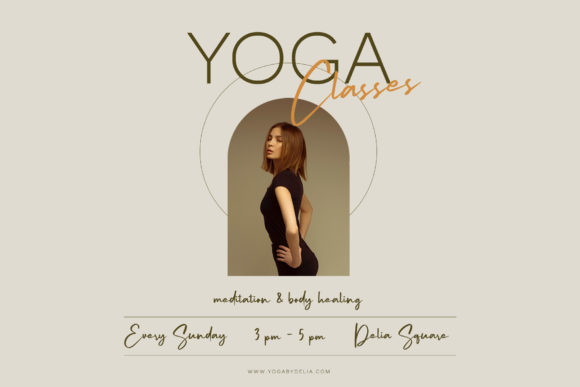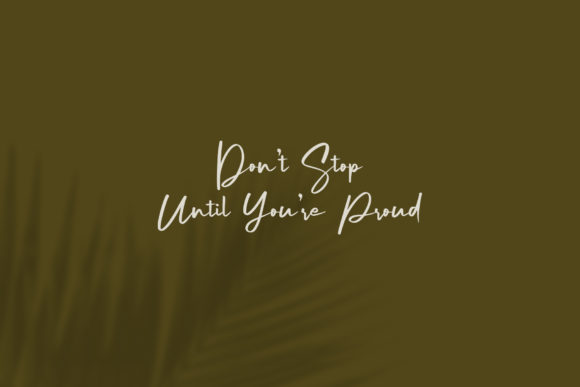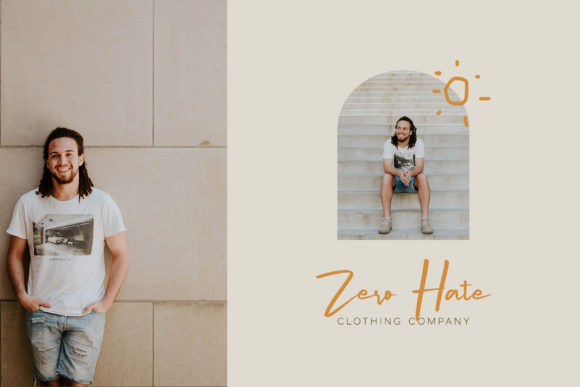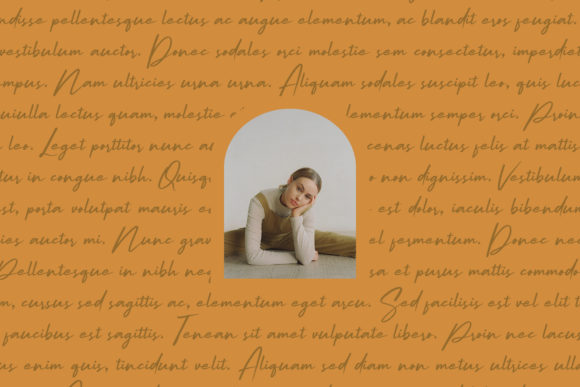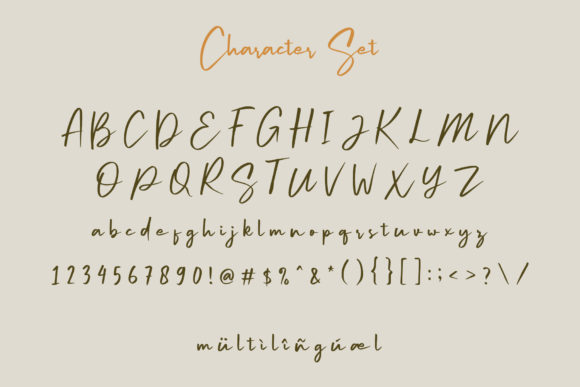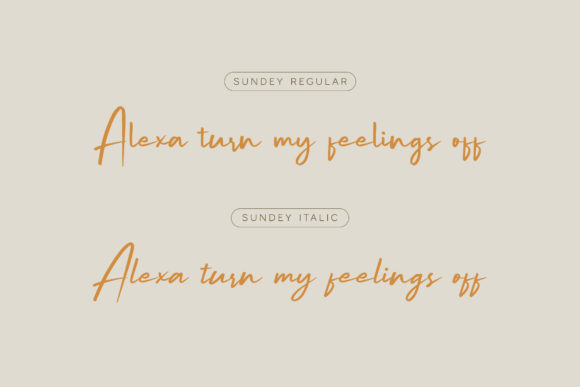
About Sundey Font
Sundey is a delicate, stylish and neat handwritten font. Fall in love with its dainty vibe and use it to create gorgeous invitations, beautiful stationary art, eye-catching social media posts, and much more!